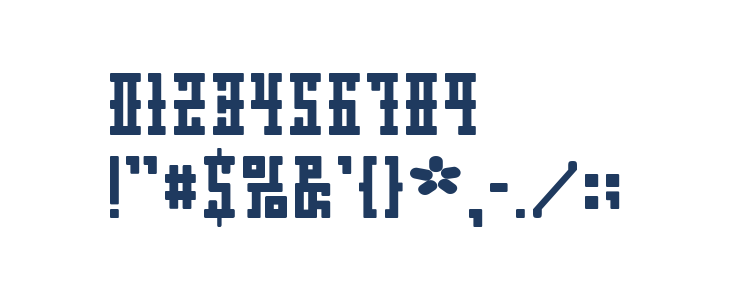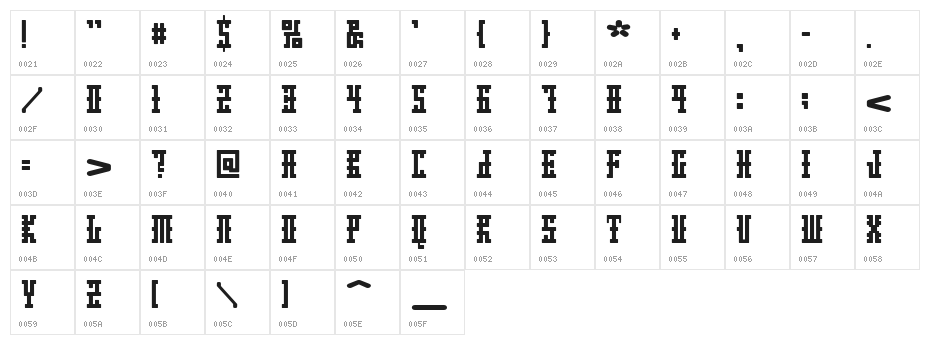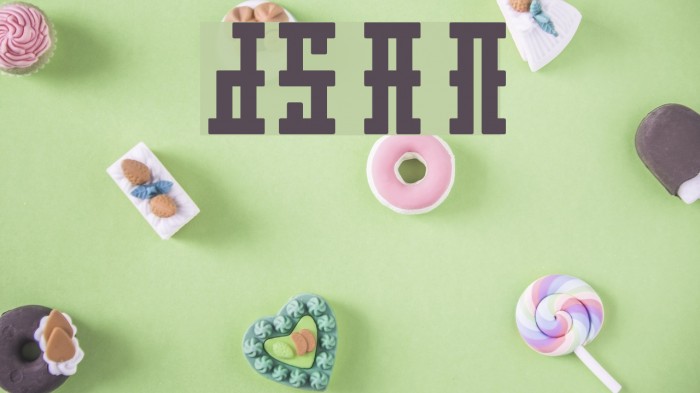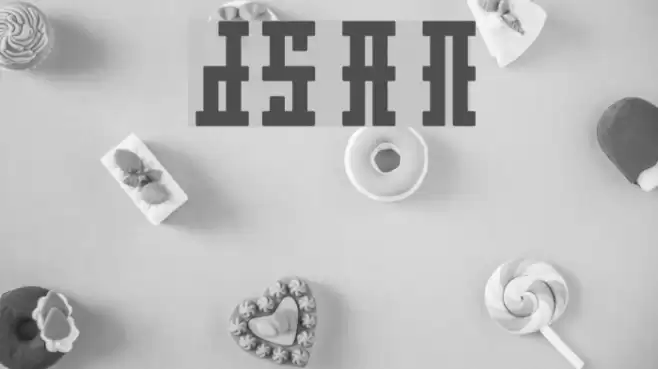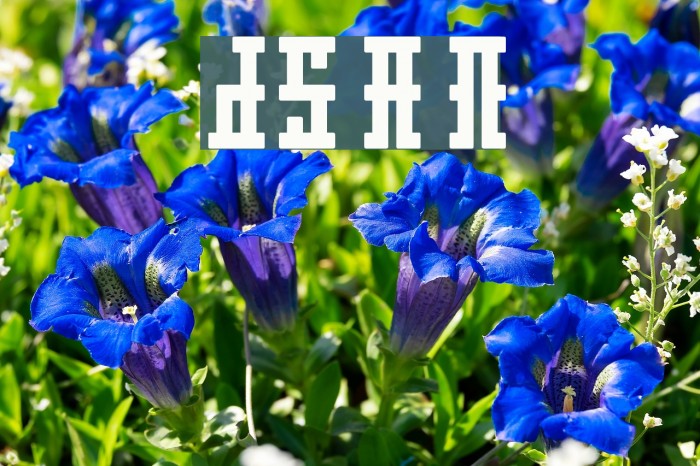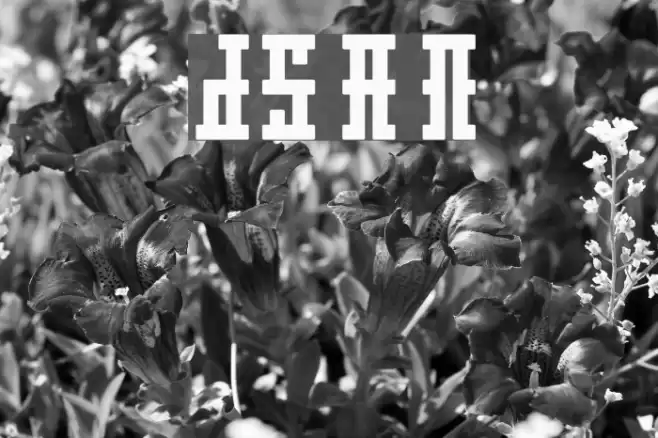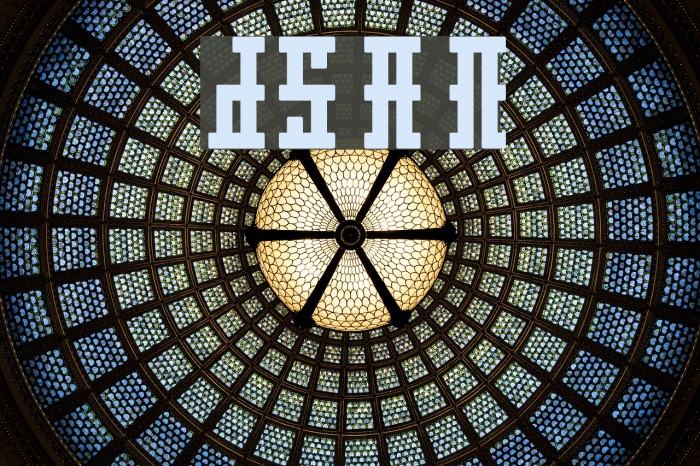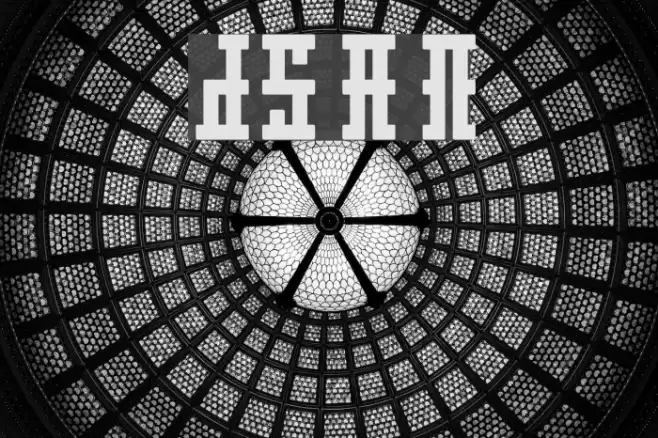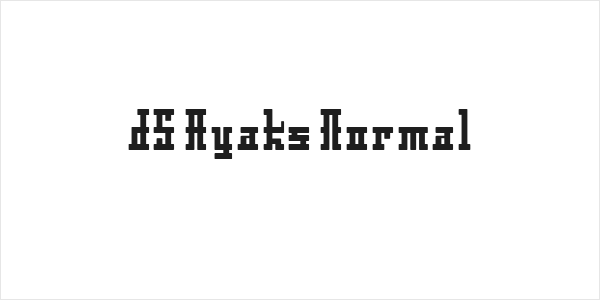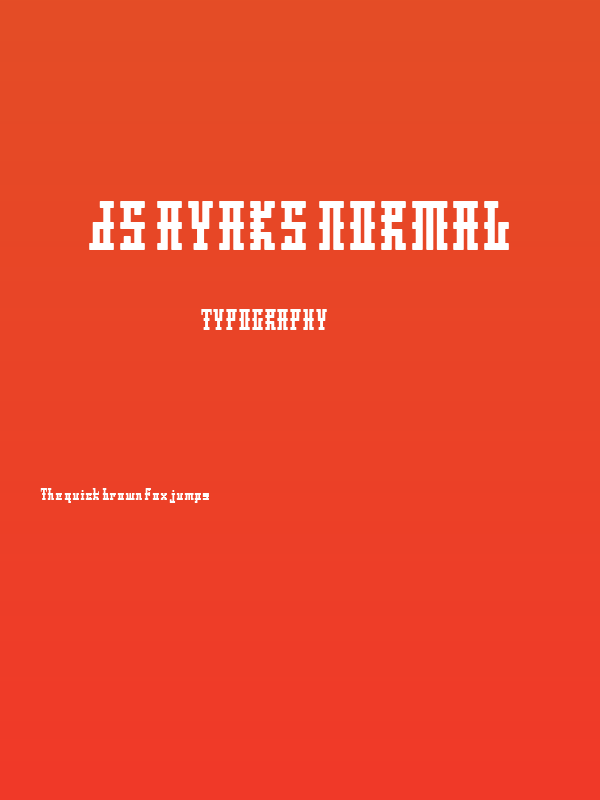
DS Ayaks Normal Font
DS Ayaks Normal Description
This font features a bold and geometric design with a distinct blocky appearance. The characters are constructed with sharp angles and consistent stroke widths, creating a uniform and structured look. The uppercase and lowercase letters maintain a similar style, emphasizing vertical and horizontal lines. Numbers and special characters follow the same design principles, ensuring cohesiveness across all glyphs. The font's strong presence makes it suitable for impactful and attention-grabbing designs.
| Proposed Projects | Ideal for posters, headlines, branding, and any project requiring a strong visual impact. |